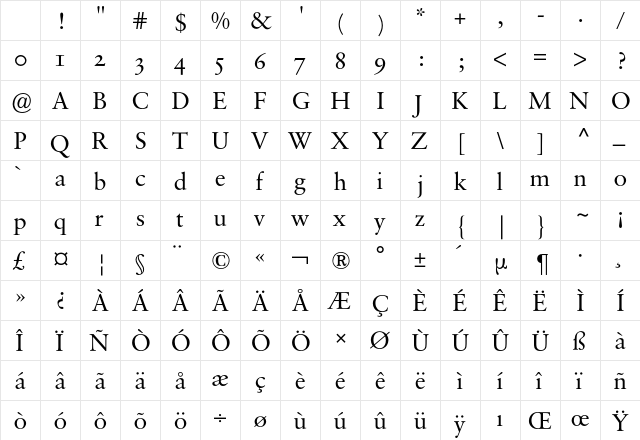
Sabon Expert BQ Regular
Sabon Expert BQ Family
Sabon Expert BQ Regular
Design Context for Sabon Expert BQ
Sabon Expert BQ is a composed and adaptable typeface that performs quietly and consistently across a wide range of design contexts.
Pro Tip: Use Sabon Expert BQ in both headline and body roles to test its range before committing to a single application.